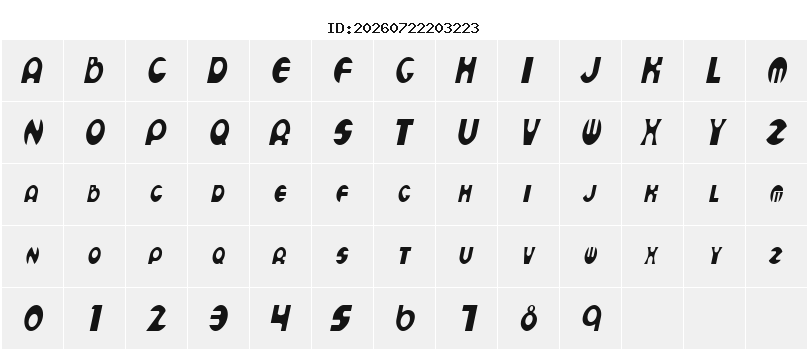
MutantCondensed Preview
• Font Name: MutantCondensed
• Font Style: Oblique
• Font ID: Swfte:MutantCondensed Oblique
• Full Font Name: MutantCondensed Oblique
• PostScript Name: MutantCondensedObliqueSwfte
About MutantCondensed.ttf
MutantCondensed.ttf is a modern, elegant sans-serif font designed for ultimate readability and visual harmony. Perfect for branding, headlines, web design, and print materials.